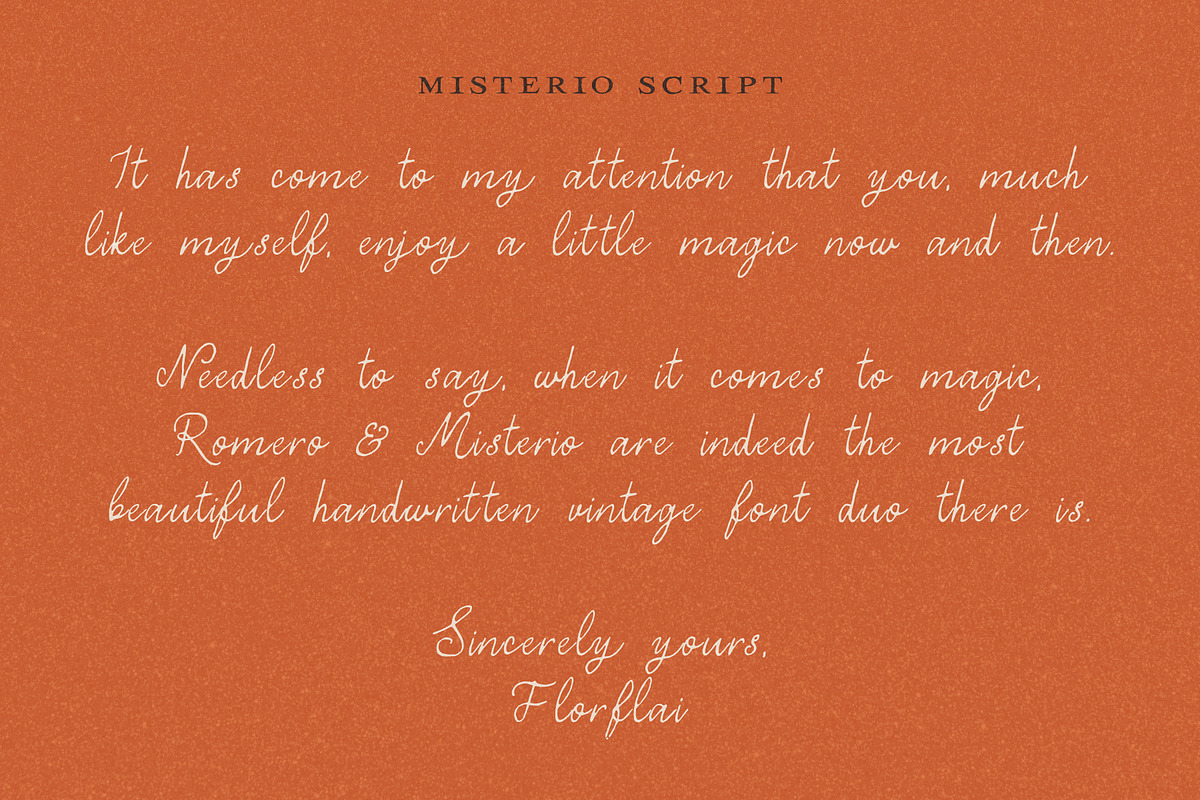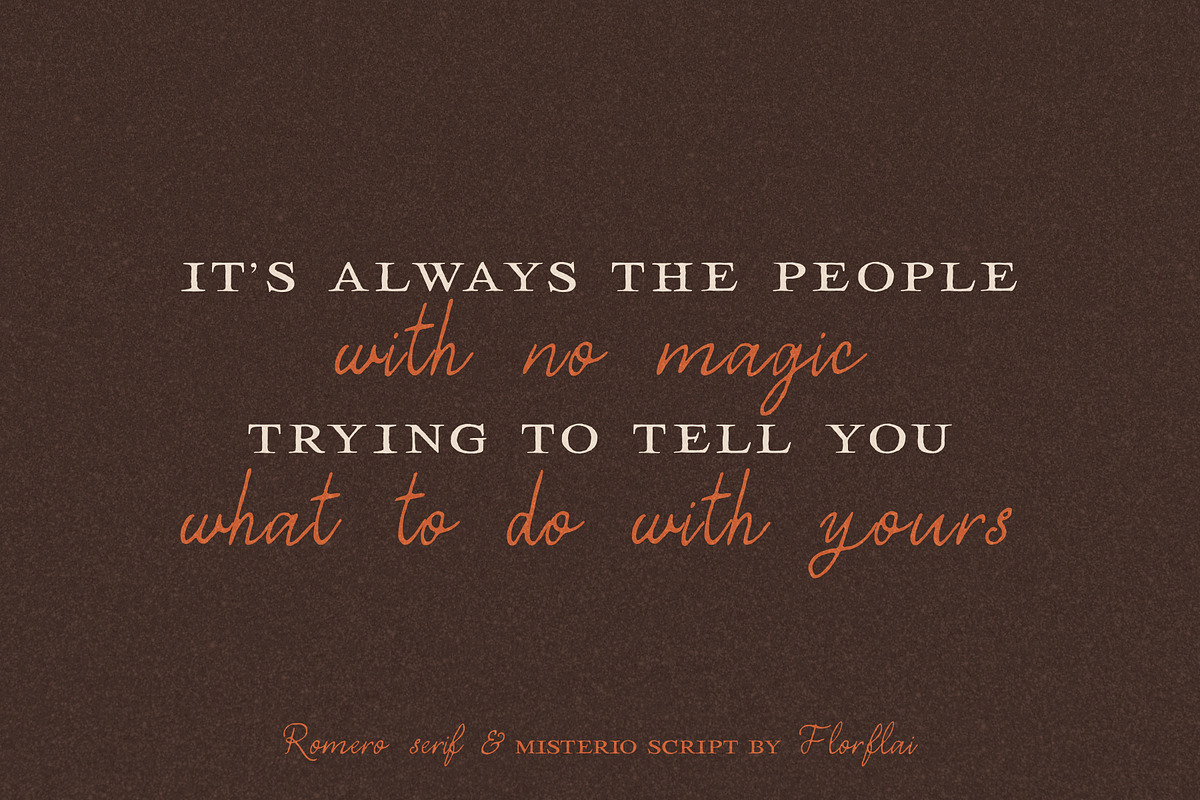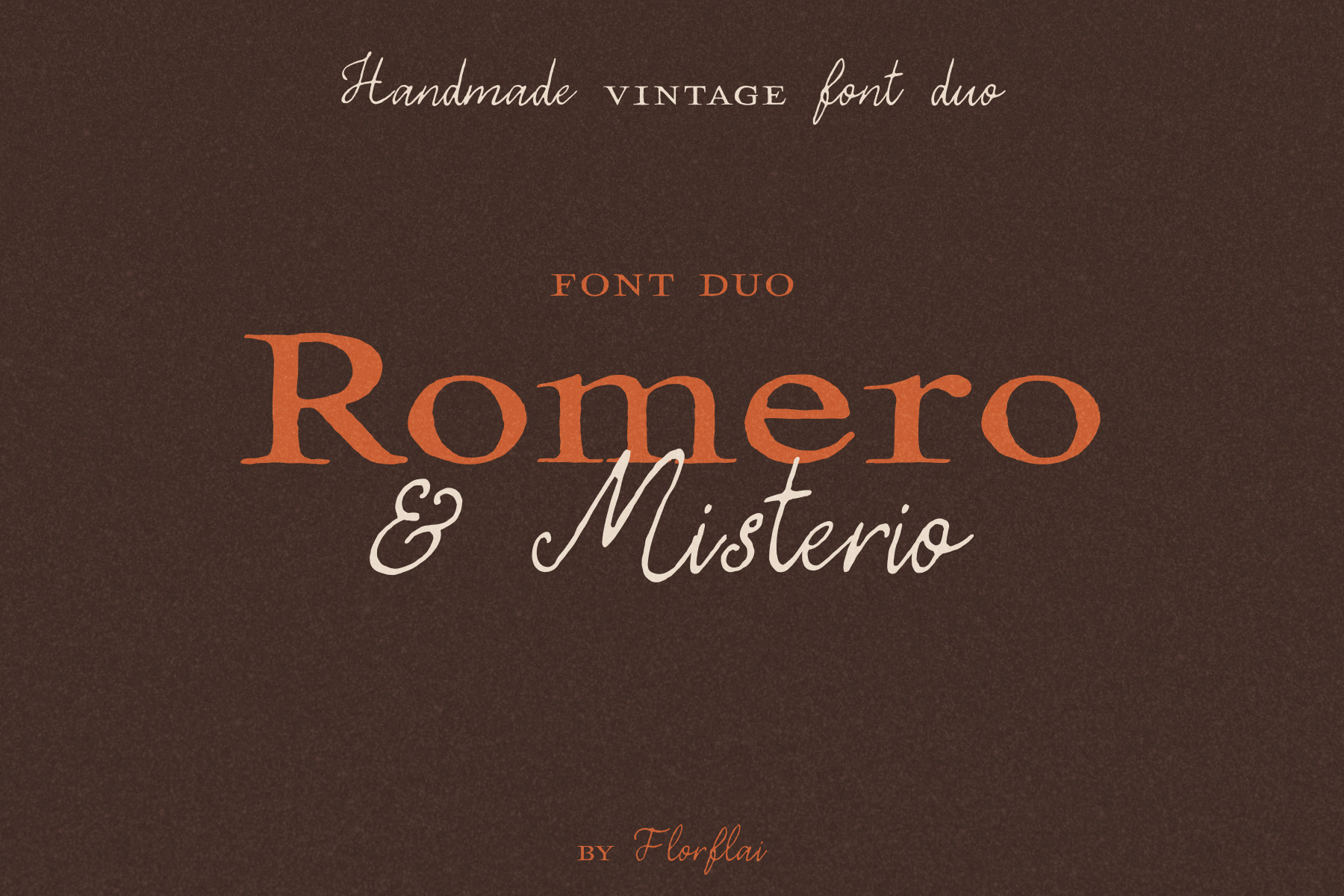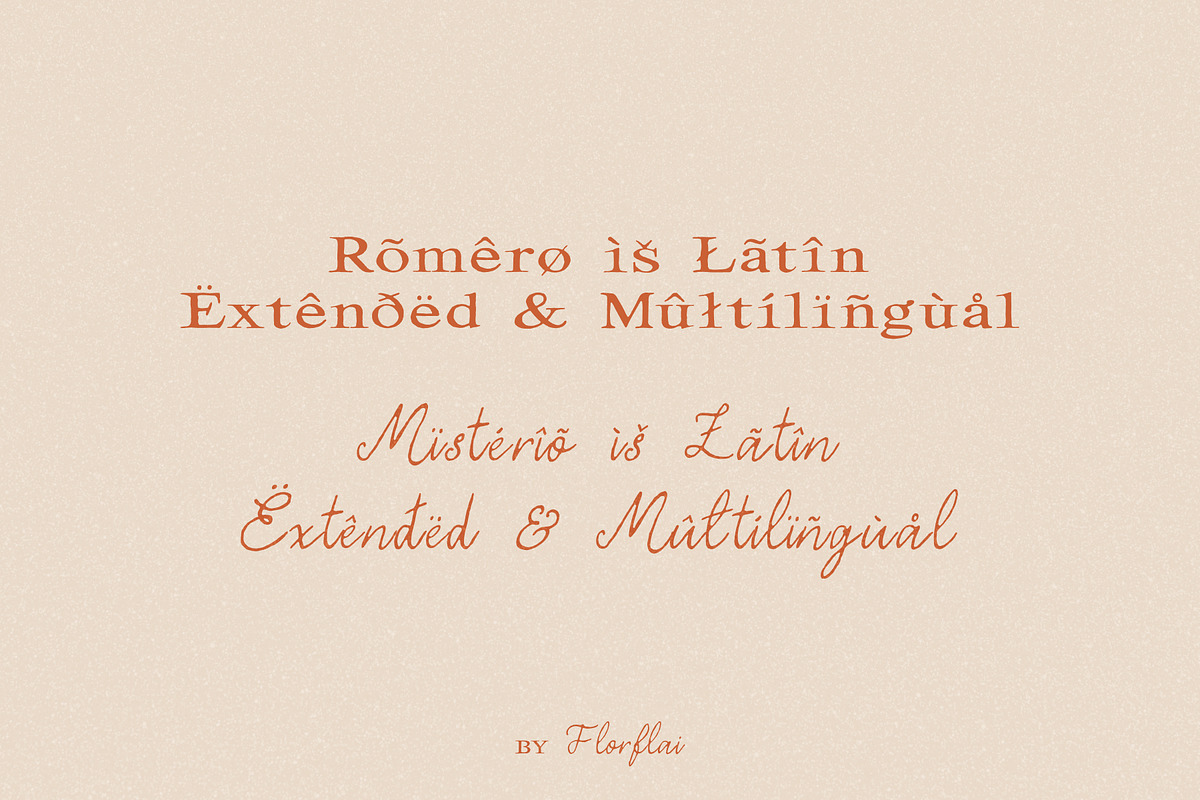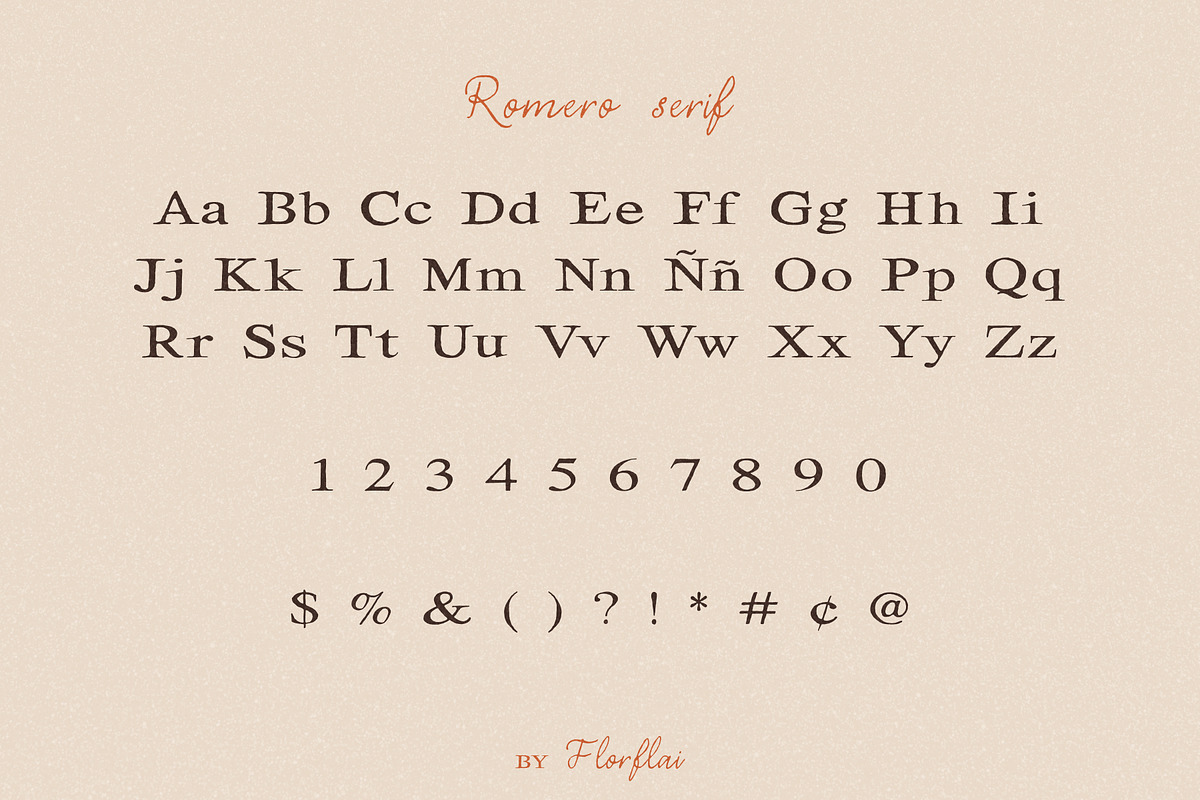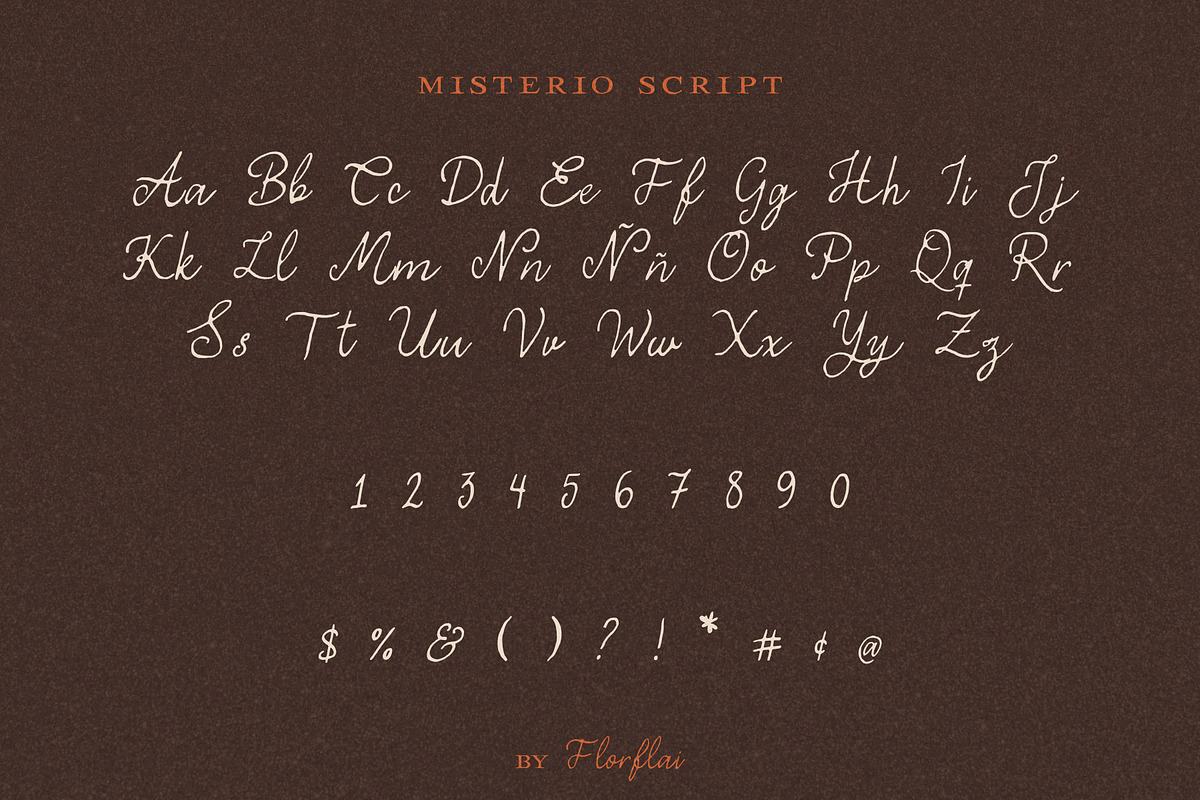
Romero & Misterio - Vintage Font Duo
Romero & Misterio is a handmade vintage font duo with a little folklore, a little old bookshop and just enough mystery to keep things interesting.
Romero is a bold, wide serif with softly rough edges and an imperfect printed feel. Made to take up space, it works beautifully for logos, packaging, posters, book covers and anything that needs a strong, slightly strange title.
Misterio is its more playful companion, a handmade script with loose movement and imperfect shapes. It adds warmth, personality and a human touch to the sturdier Romero.
Together, they balance bold and delicate, printed and handwritten, familiar and a little unexpected. Inspired by old signs, folk tales, worn paper, tarot cards and those beautiful labels you find in the back of a forgotten drawer.
Perfect for branding, packaging, editorial covers, posters, menus, café projects, wedding invitations, stationery, seasonal campaigns and designs with a handmade vintage feel.